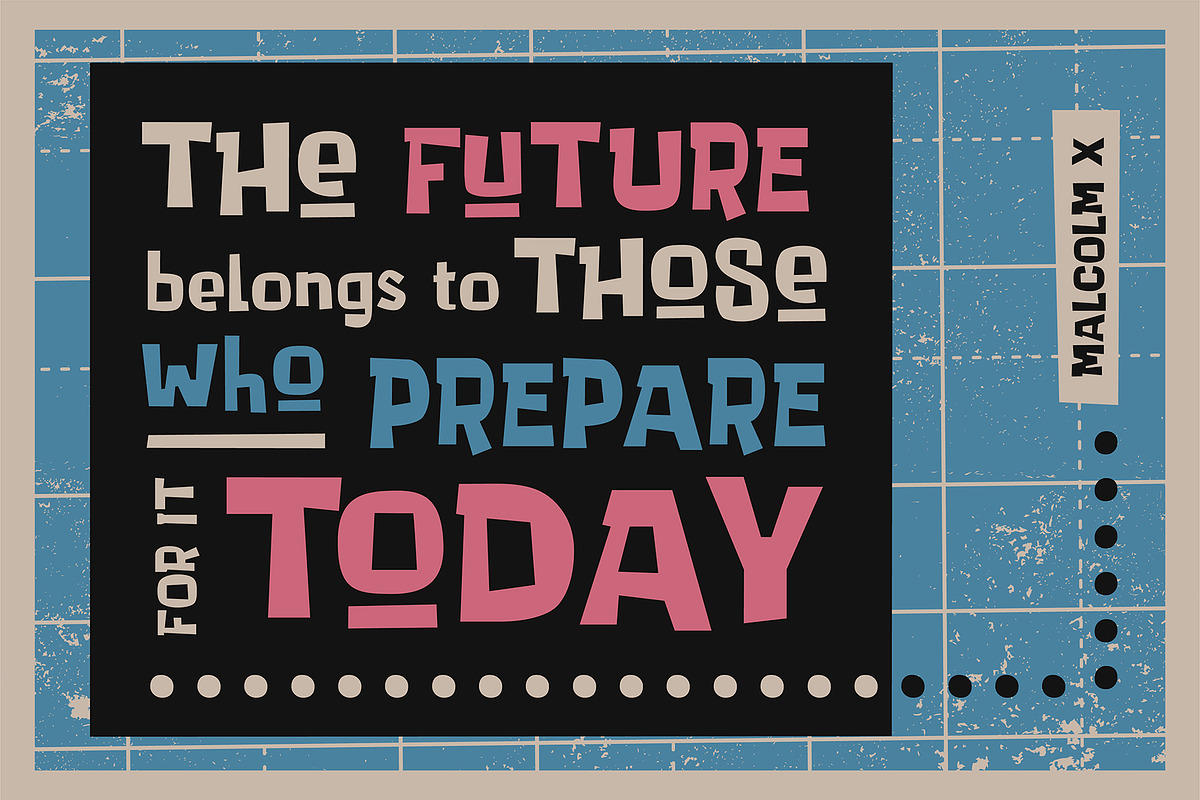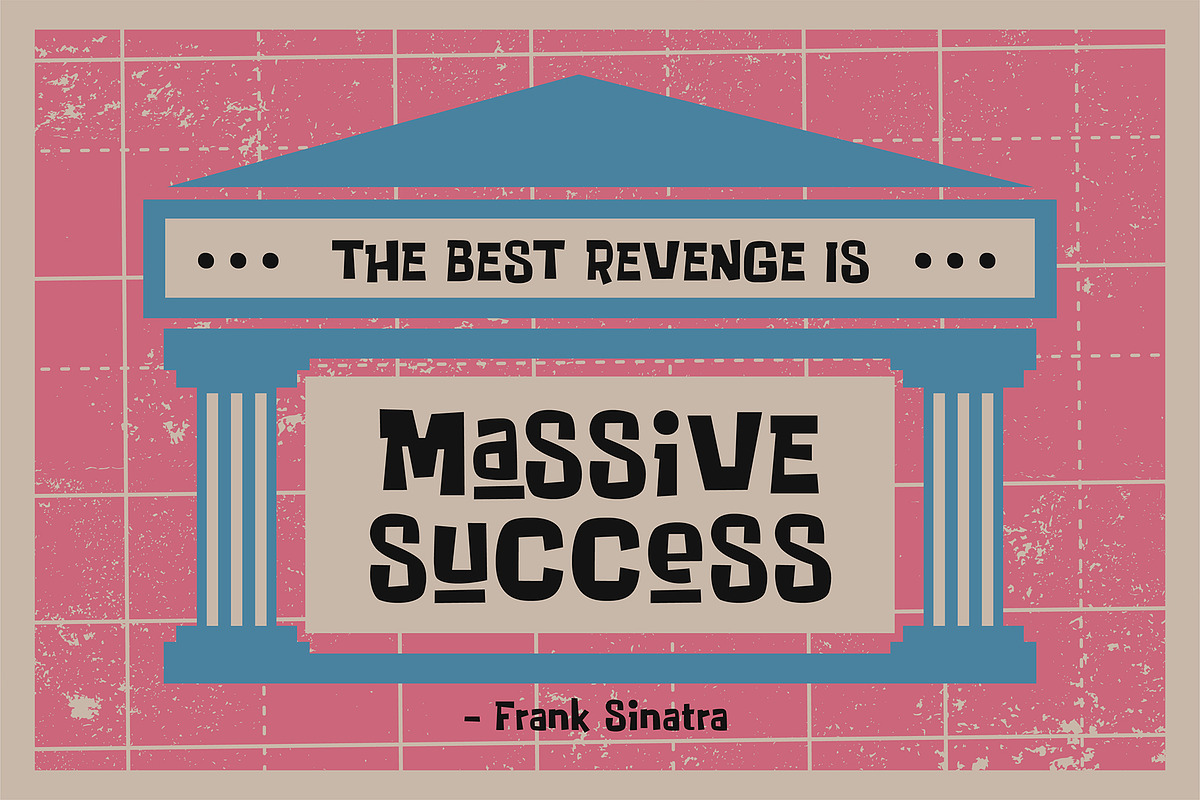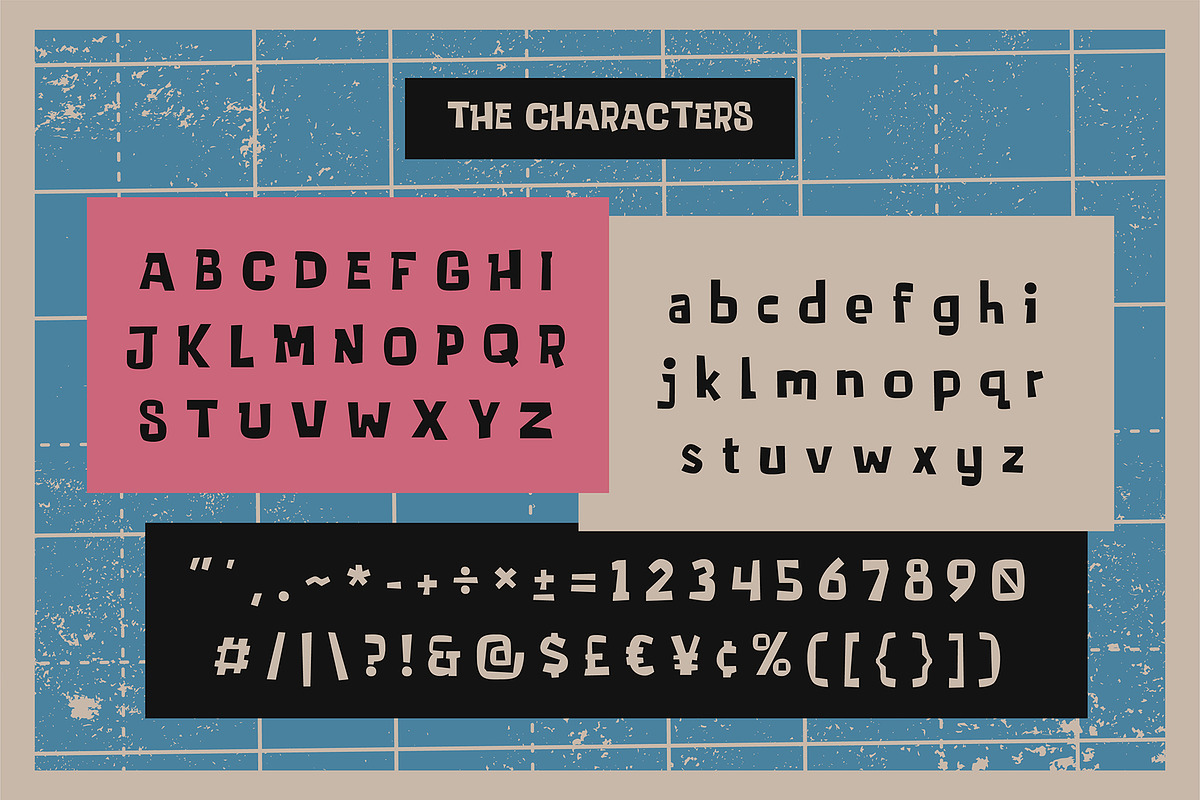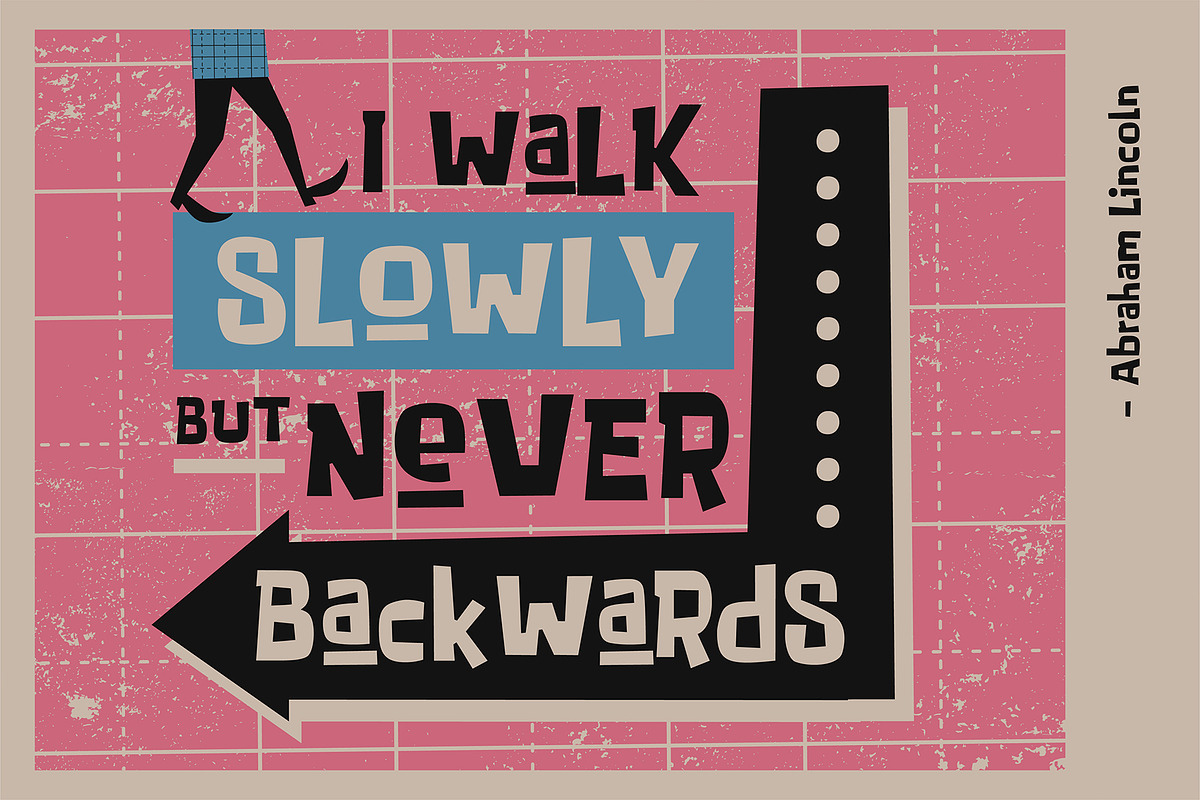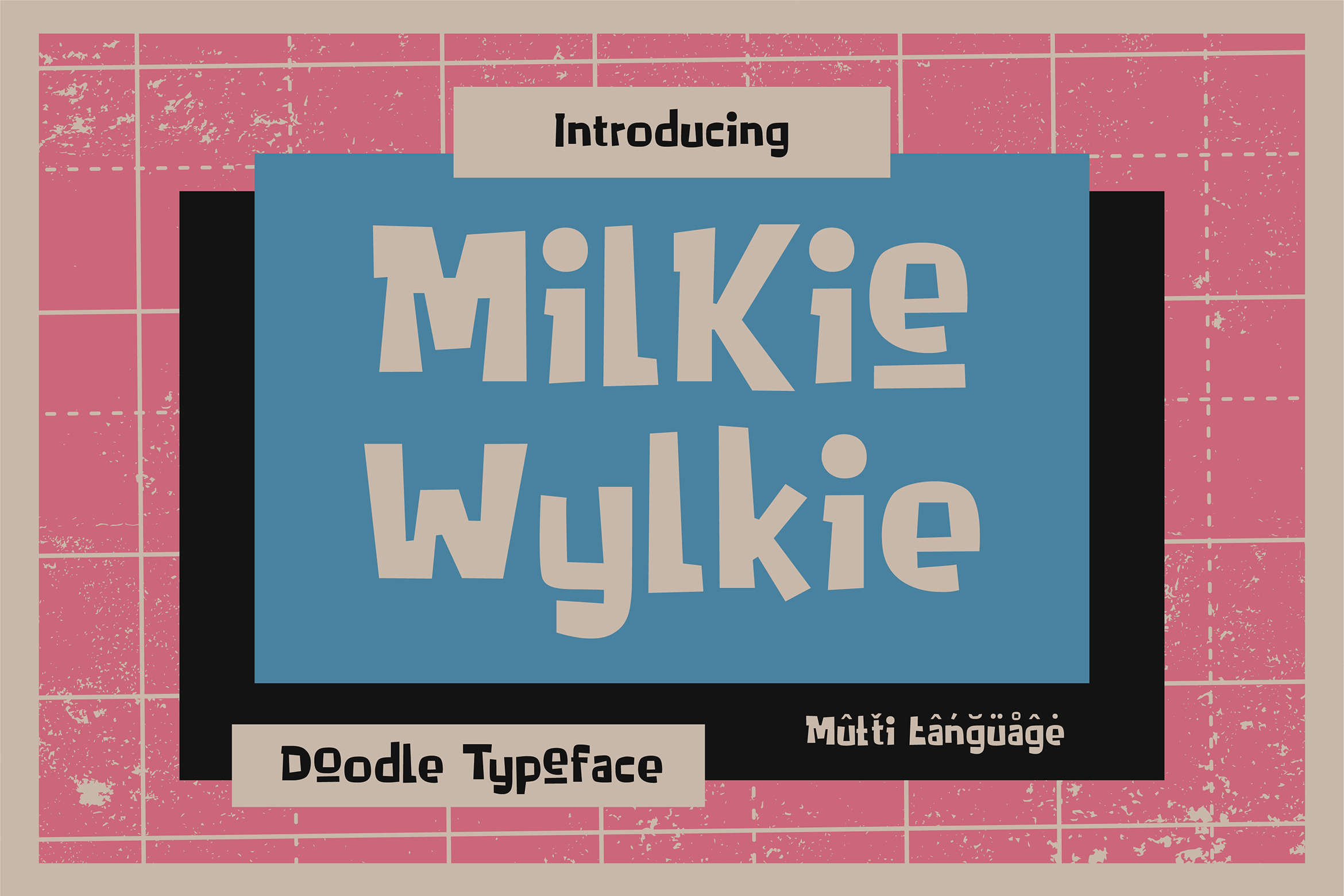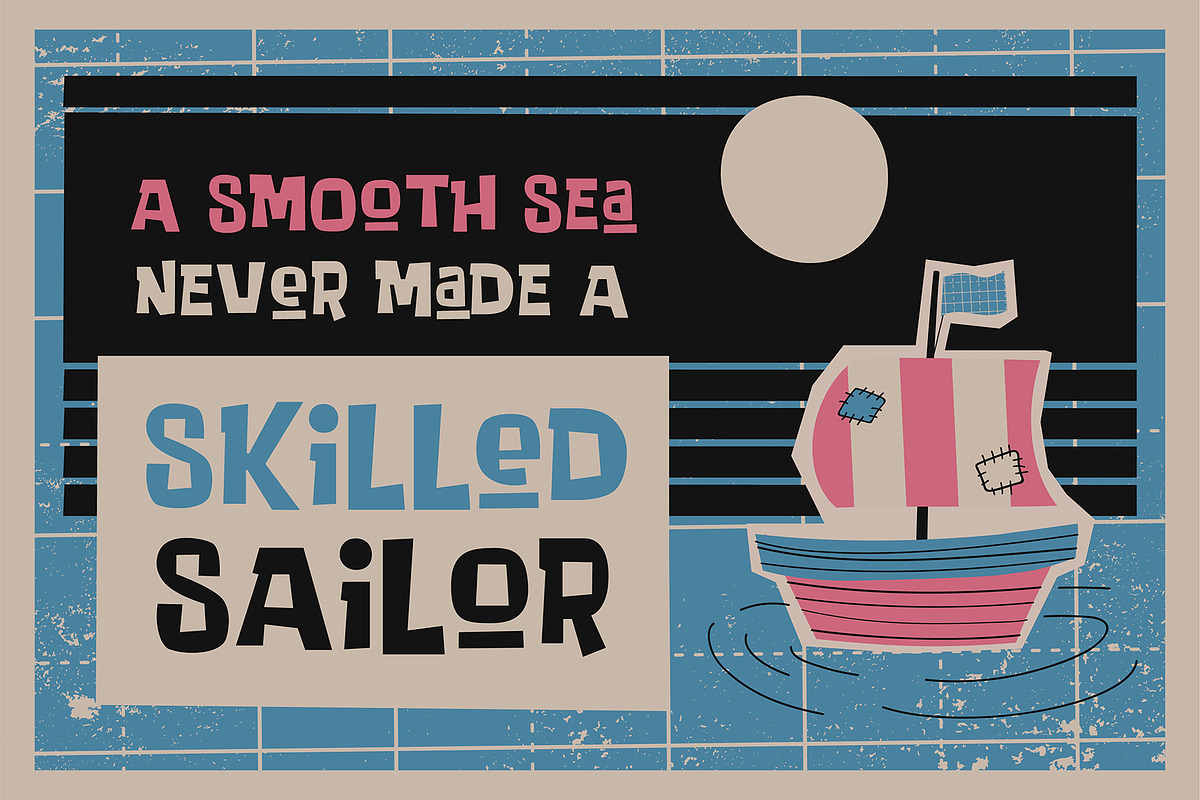
Milkie Wylkie - Doodle Typeface
Milkie Wylkie is a doodle display typeface. The imperfect and asymmetric shapes make this typeface looks more fun to use. This casual typeface can give a playful ambient to titles, quotes, taglines, etc.
Milkie Wylkie includes a full set of playful uppercase and lowercase letters, numerals, punctuation, and alternates as well. It also supports multilanguage (Simple Latin).